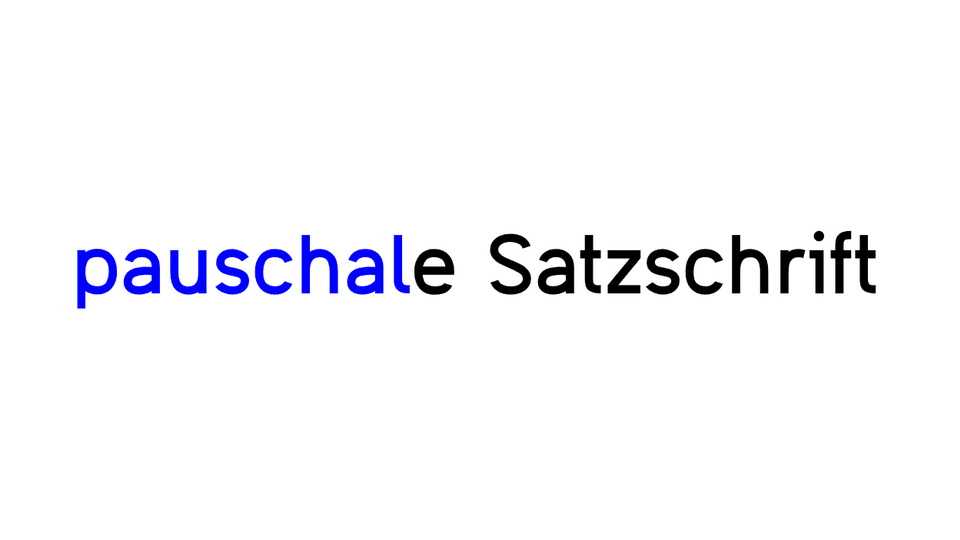
Download Pauschal font, a sans serif typeface inspired by Atkinson Hyperlegible with influences from the D-DIN font. Pauschal is made to be a variable font and will receive more variation axes like italic, and width or rather height.
Designer: Johannes Wipper